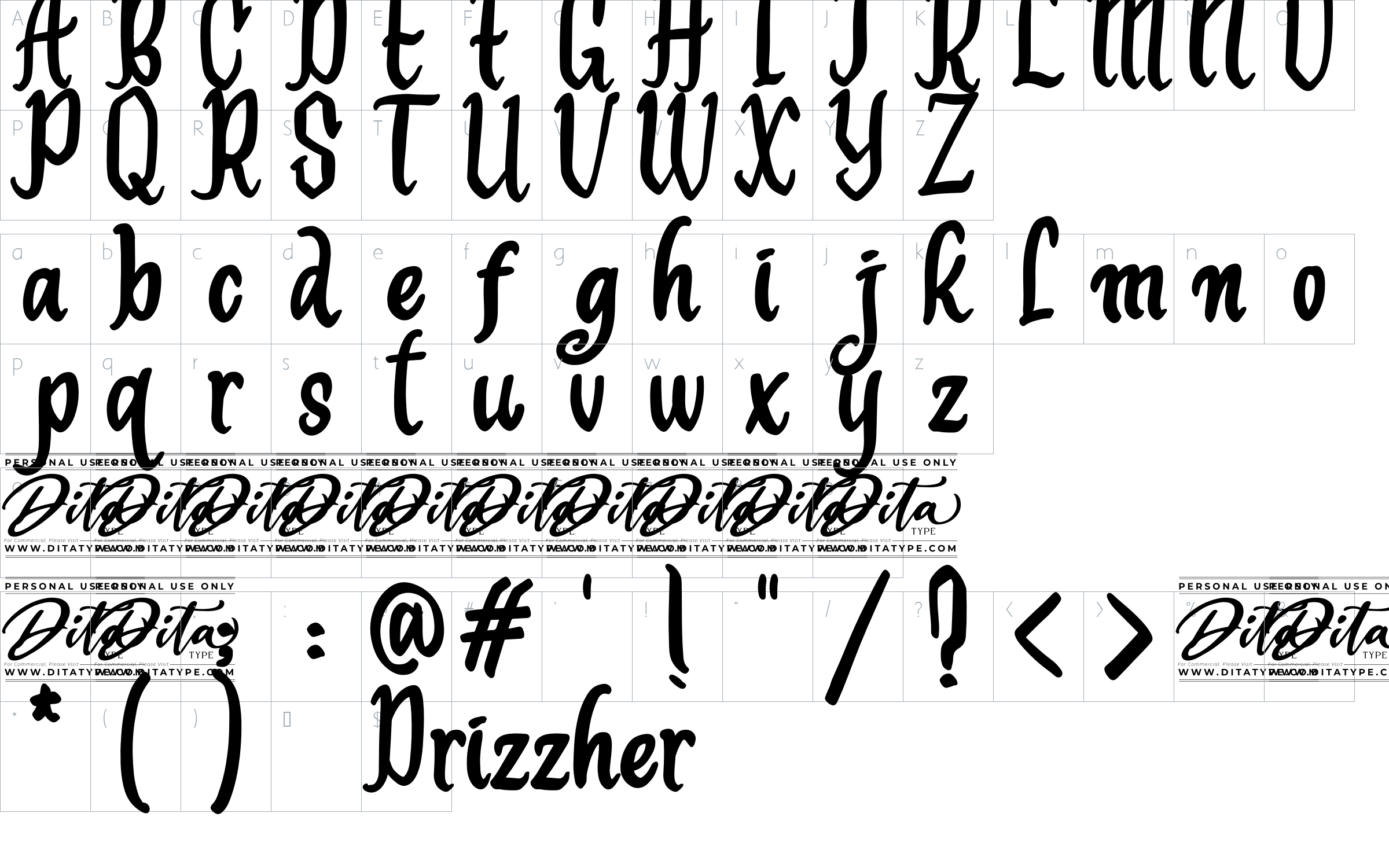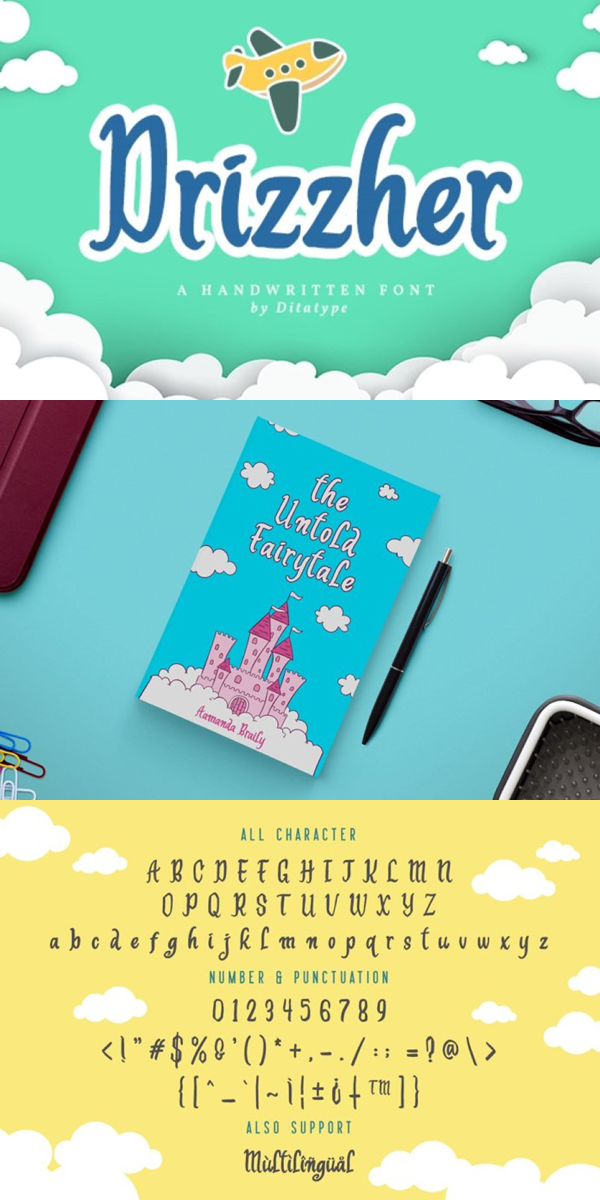
Drizzher Font
About Drizzher
Drizzher embodies fun, quirkiness and authenticity. This enchanting display font will turn any creative idea into a true standout. Get creative with its unique playfulness, and use it to brighten up any crafting project!